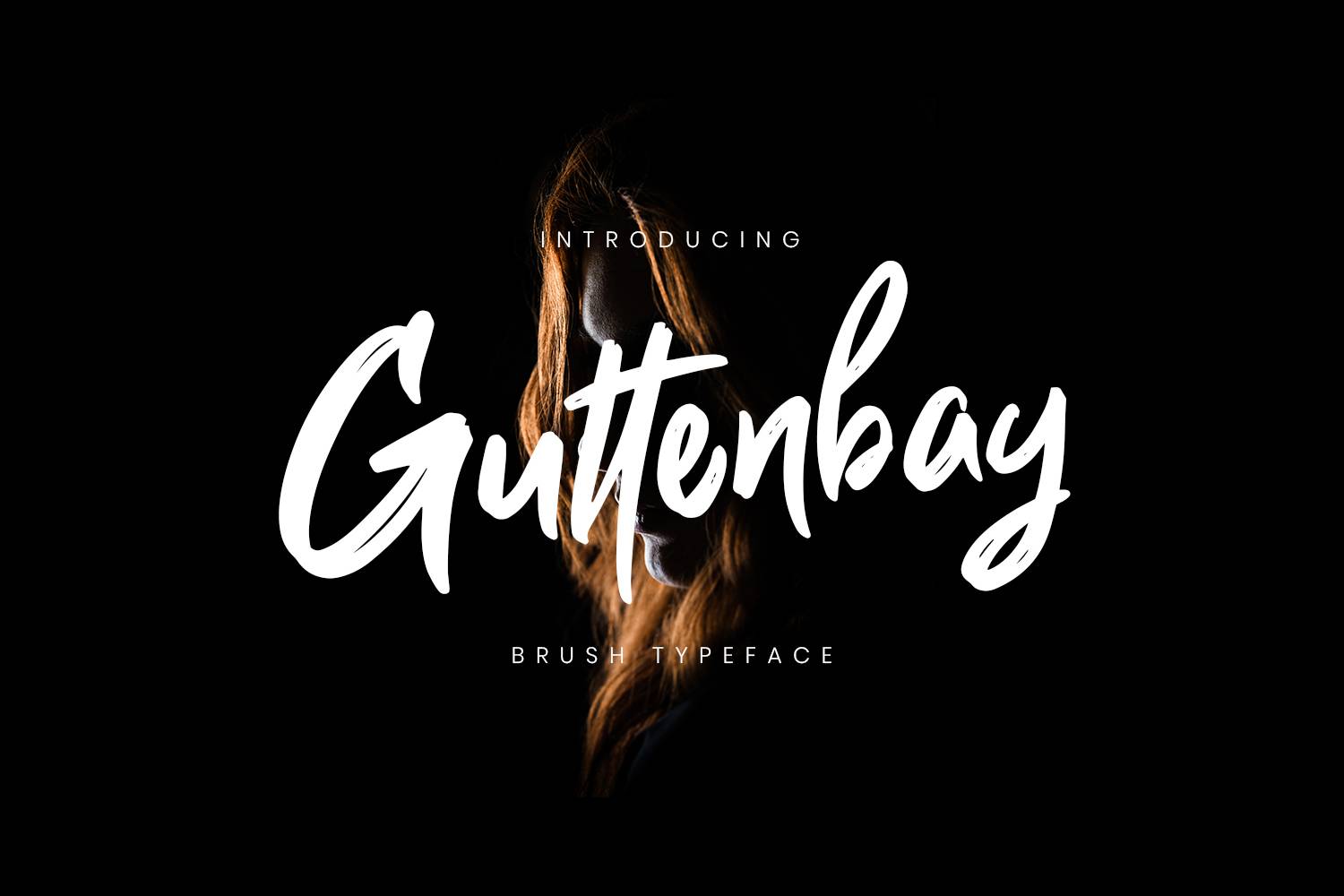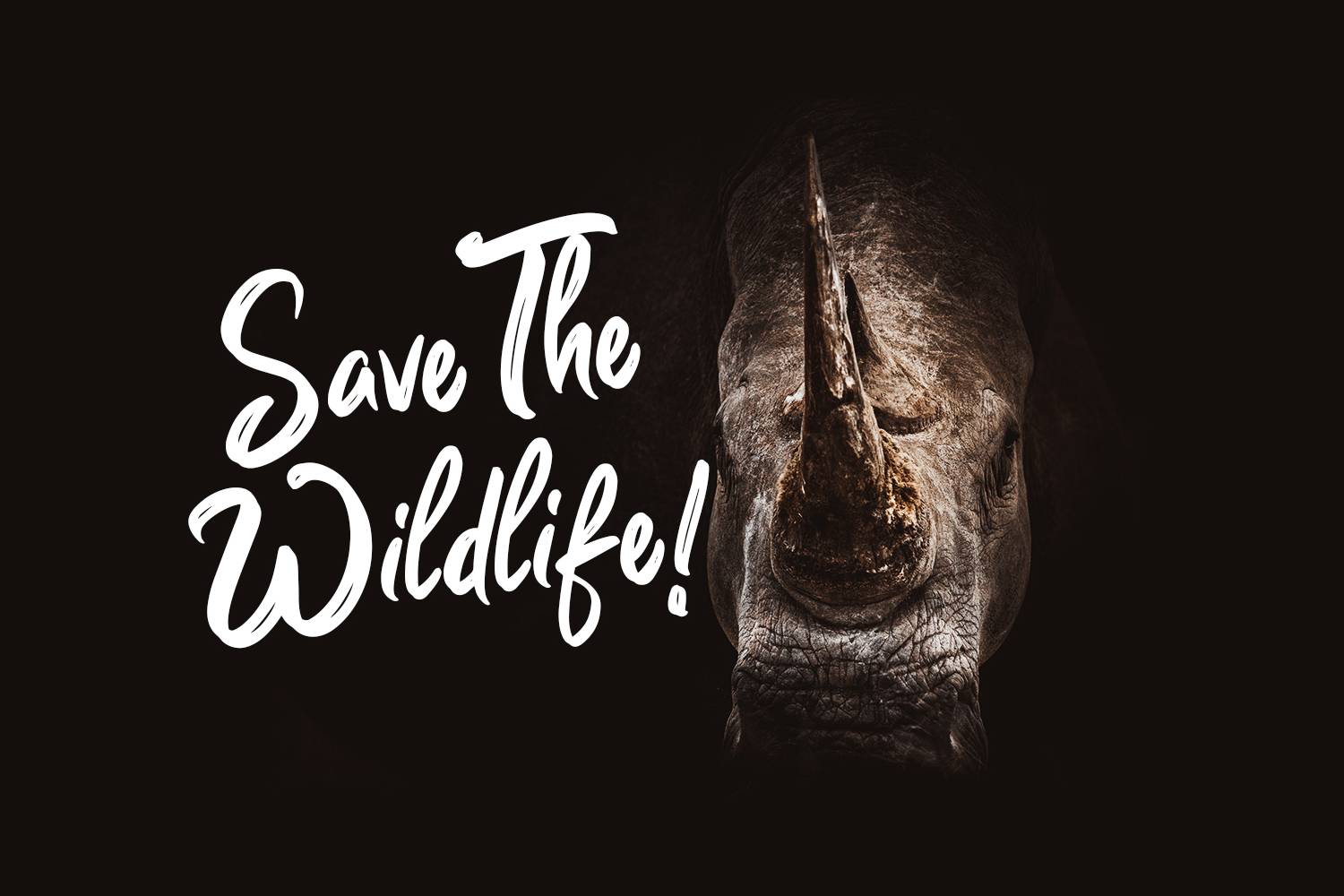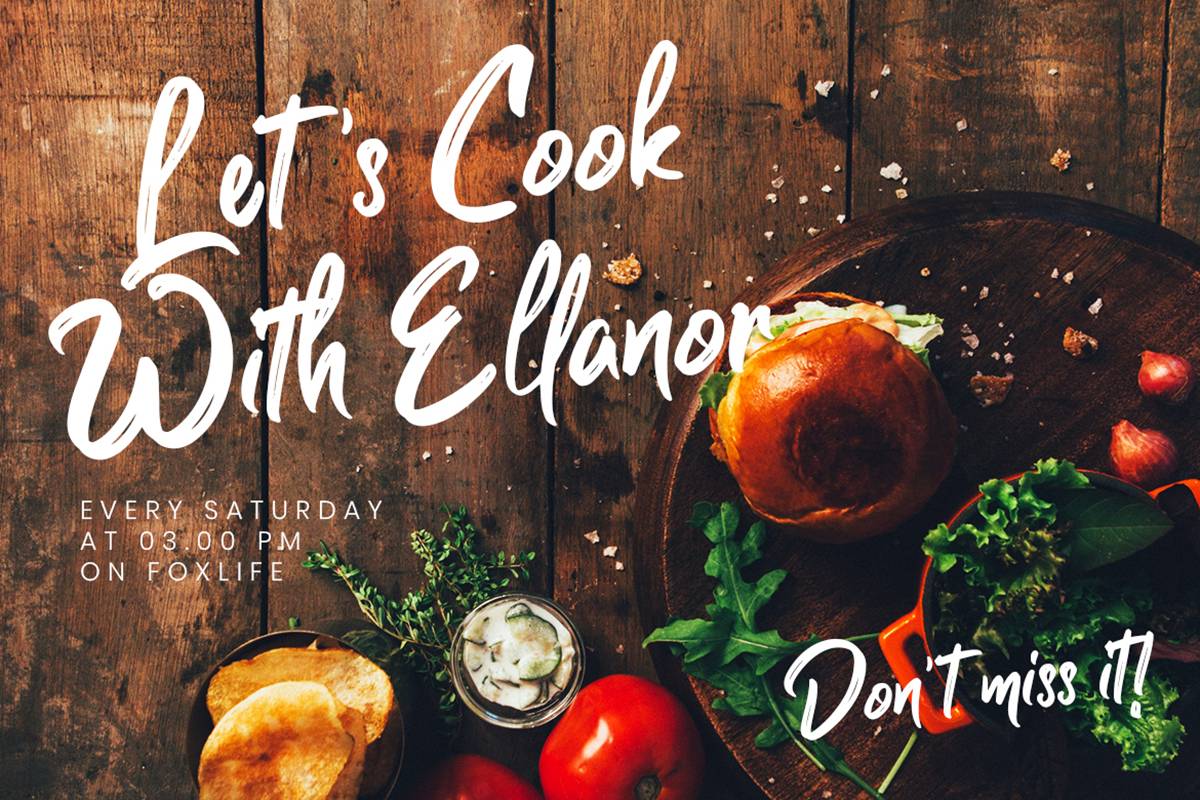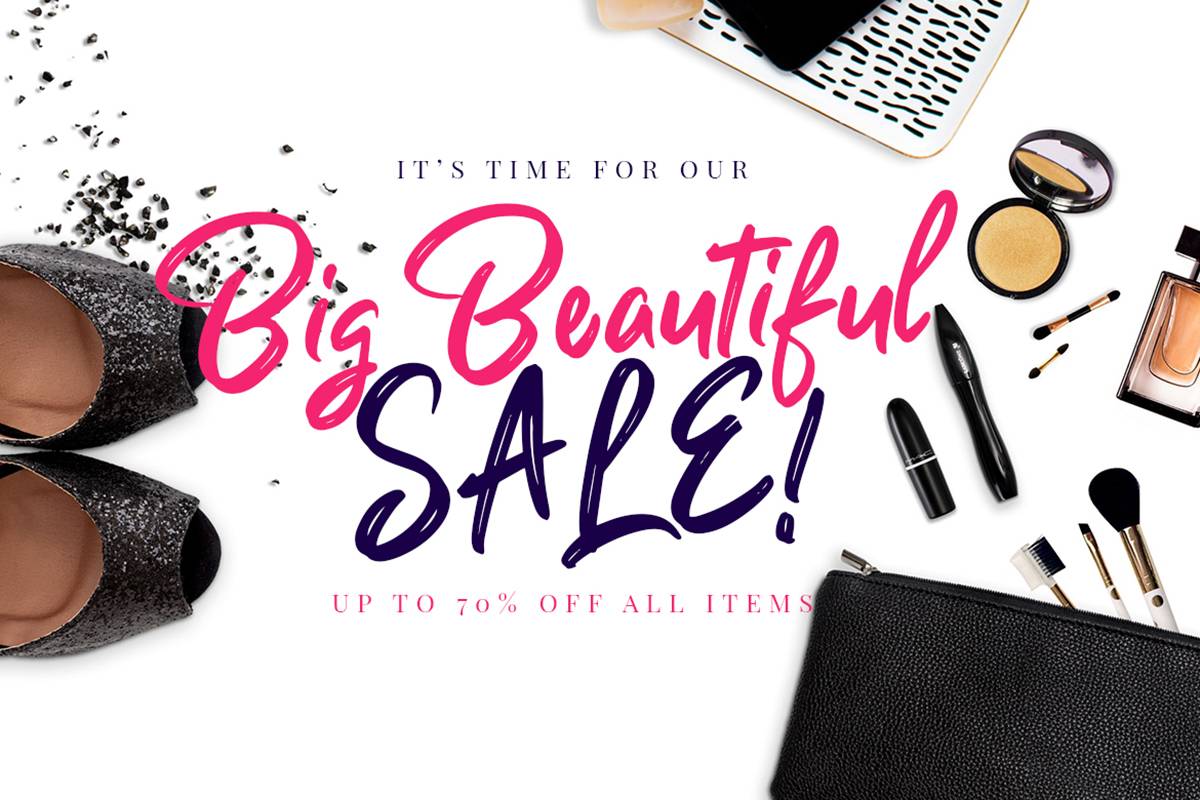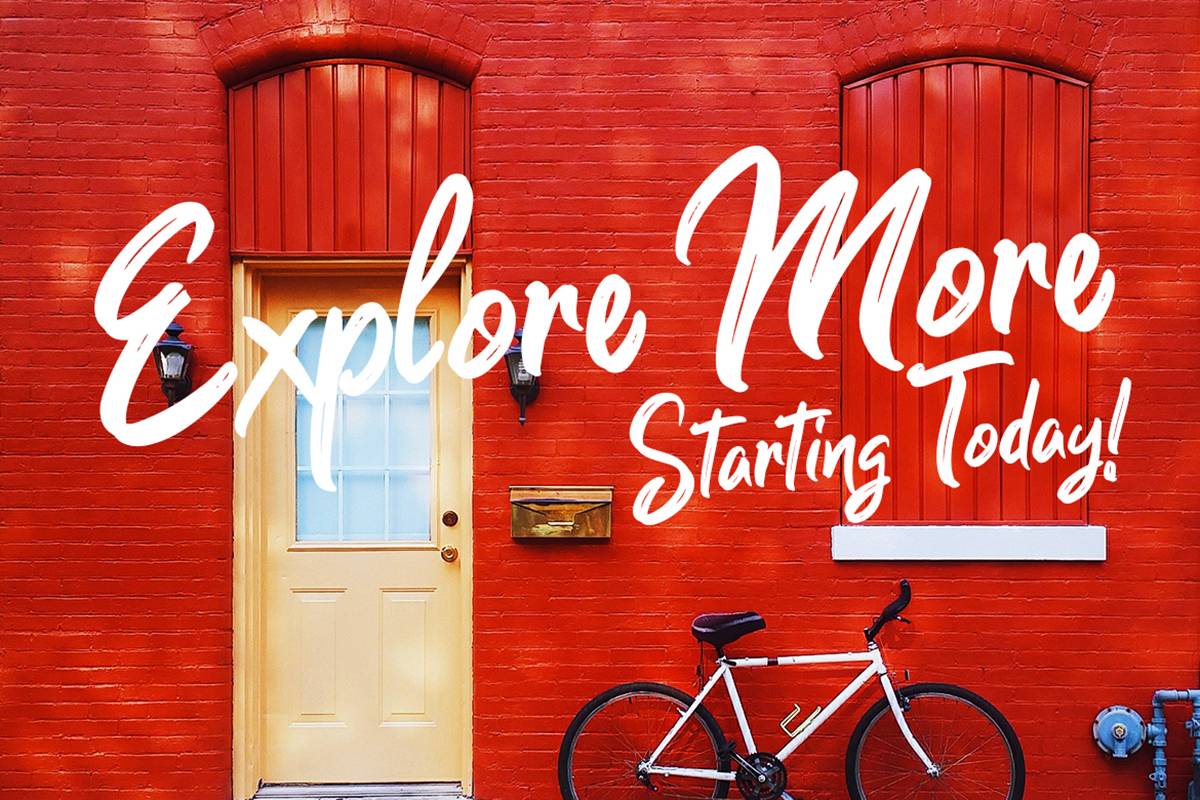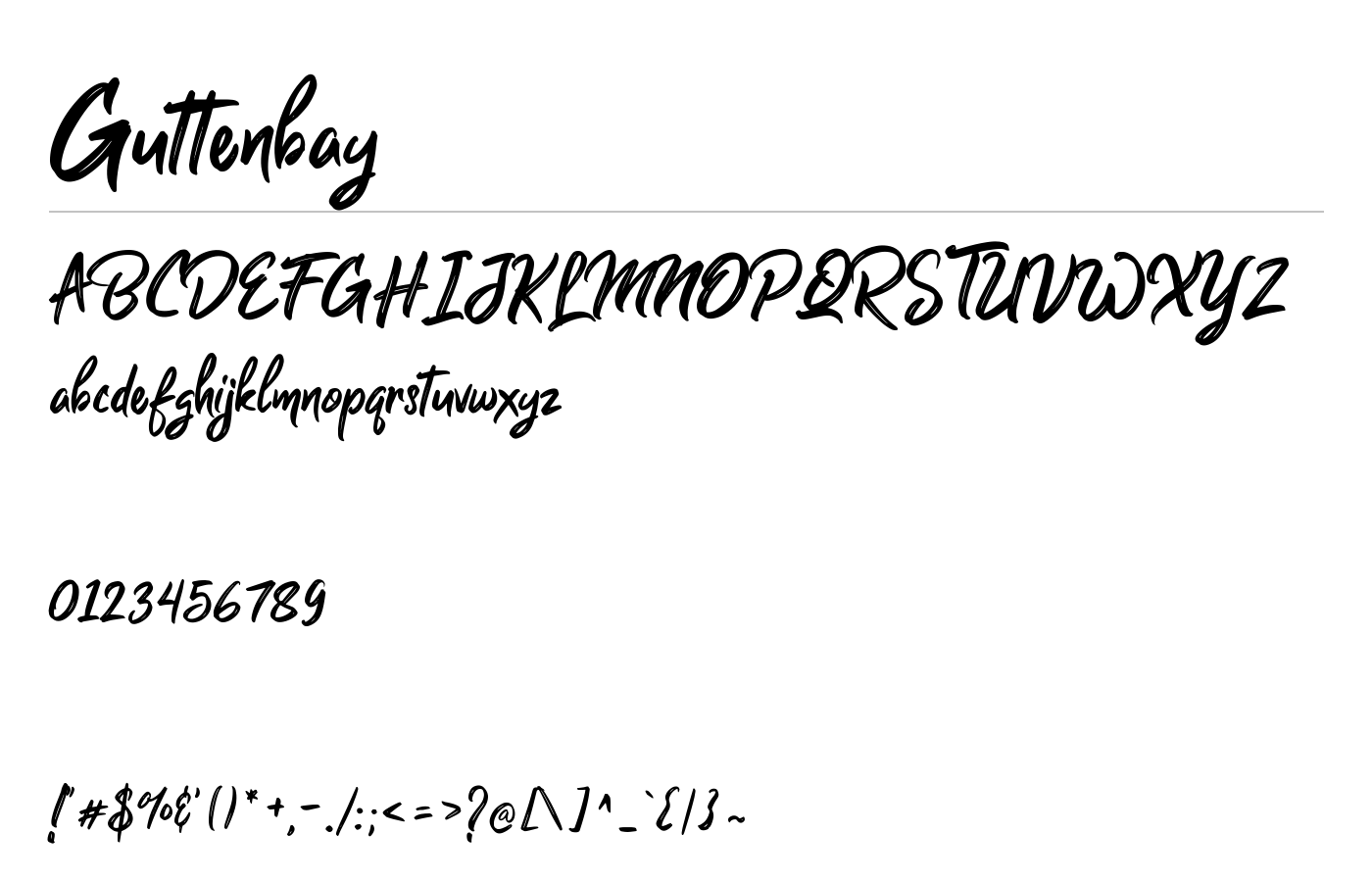
Guttenbay is a lively and energetic script font with a bold, hand-painted feel that combines casual charm with clear readability. Its textured strokes and slightly irregular shapes give it a personal, artistic touch, making it perfect for branding, packaging, and creative projects that seek a friendly yet dynamic personality. This font works especially well for headlines and logos where a unique, expressive style can stand out and convey warmth and creativity.
Guttenbay Font